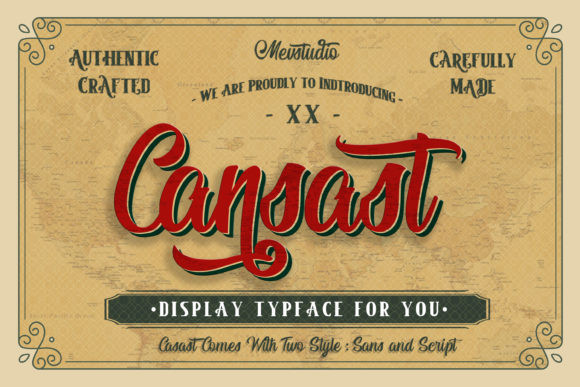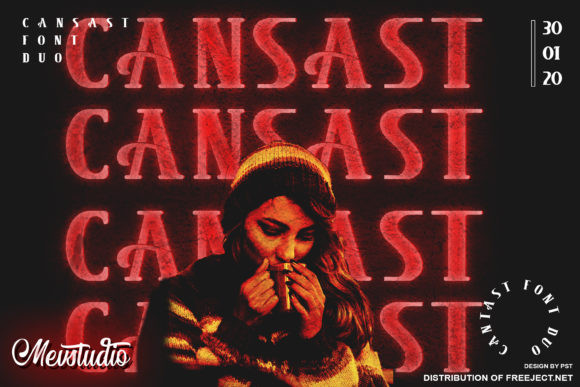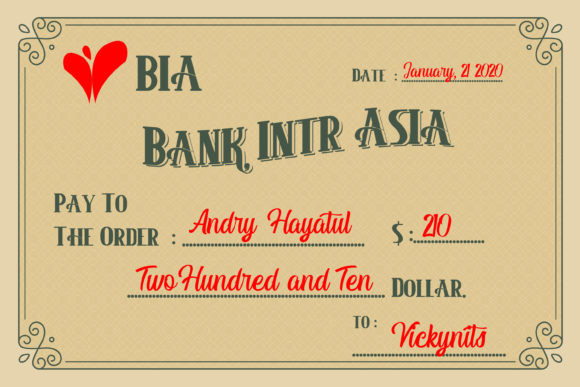
Cansast Font
Cansast has a distinctly nostalgic feel that will look great across a wide range of design projects. Fall in love with its unique style, and turn any design idea into a true standout!